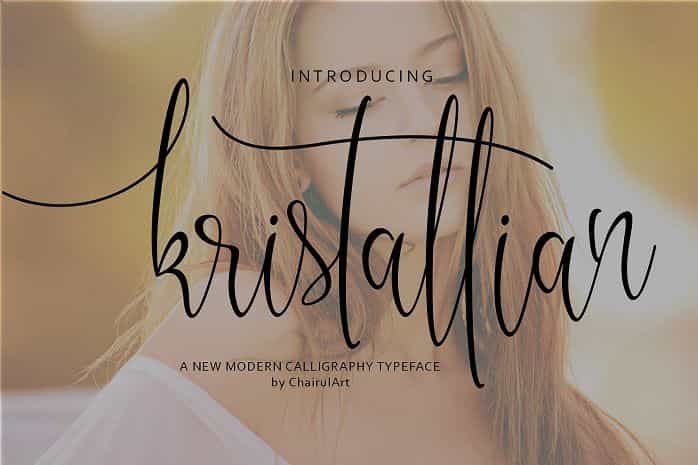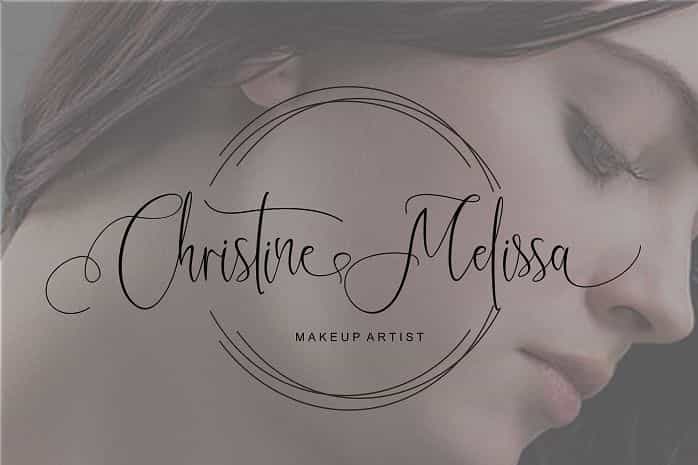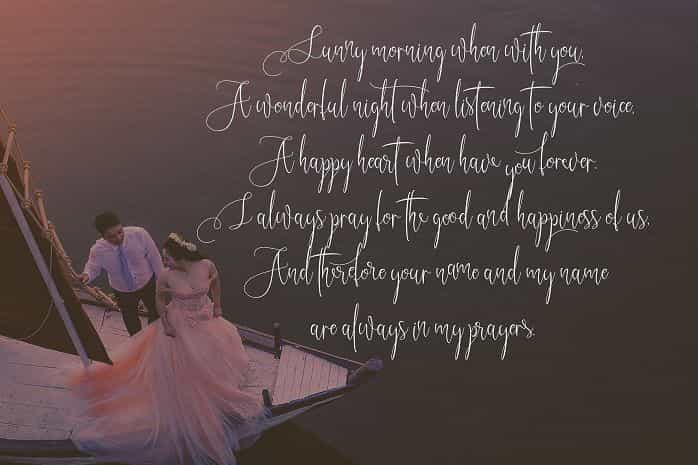
Introducing Kristallian Font. Kristallian is a modern script font, each and every letter has been crafted with care to make your text look beautiful. With modern script style this font will perfect for many different project, example: invitations, greeting cards, posters, name card, quotes, blog header, something branded and specified in a logo or fashion design.